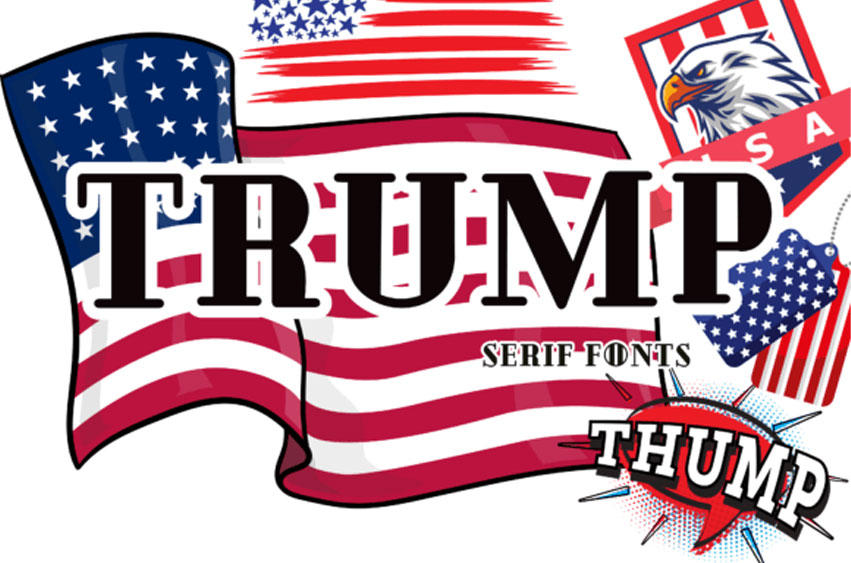
Trump Font
Trump Font is a versatile handwritten font that embodies the authenticity and warmth of a human touch. Perfect for a myriad of applications, it can lend an air of intimacy to note-taking or bring a personal twist to your diary entries. Its charisma also shines through in creative endeavors such as greeting card designs, where it helps to create meaningful connections.
But that’s just the tip of the iceberg; the “Trump” font can seamlessly adorn anything from banners to clothing, stationery pieces to coffee mugs, fusing form and function with style. Boost the visual impact of your social media posts or enrich the feel of your content with this unique font, and let its artistic flair speak volumes in your designs.